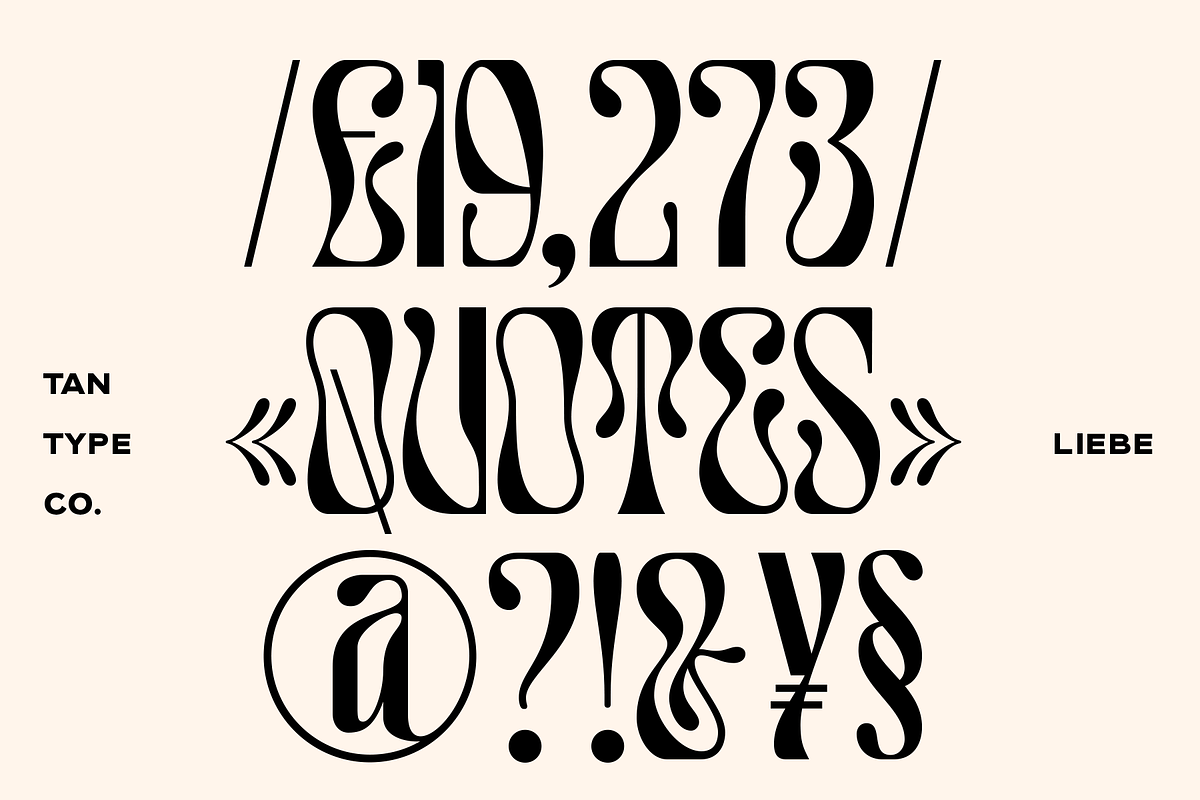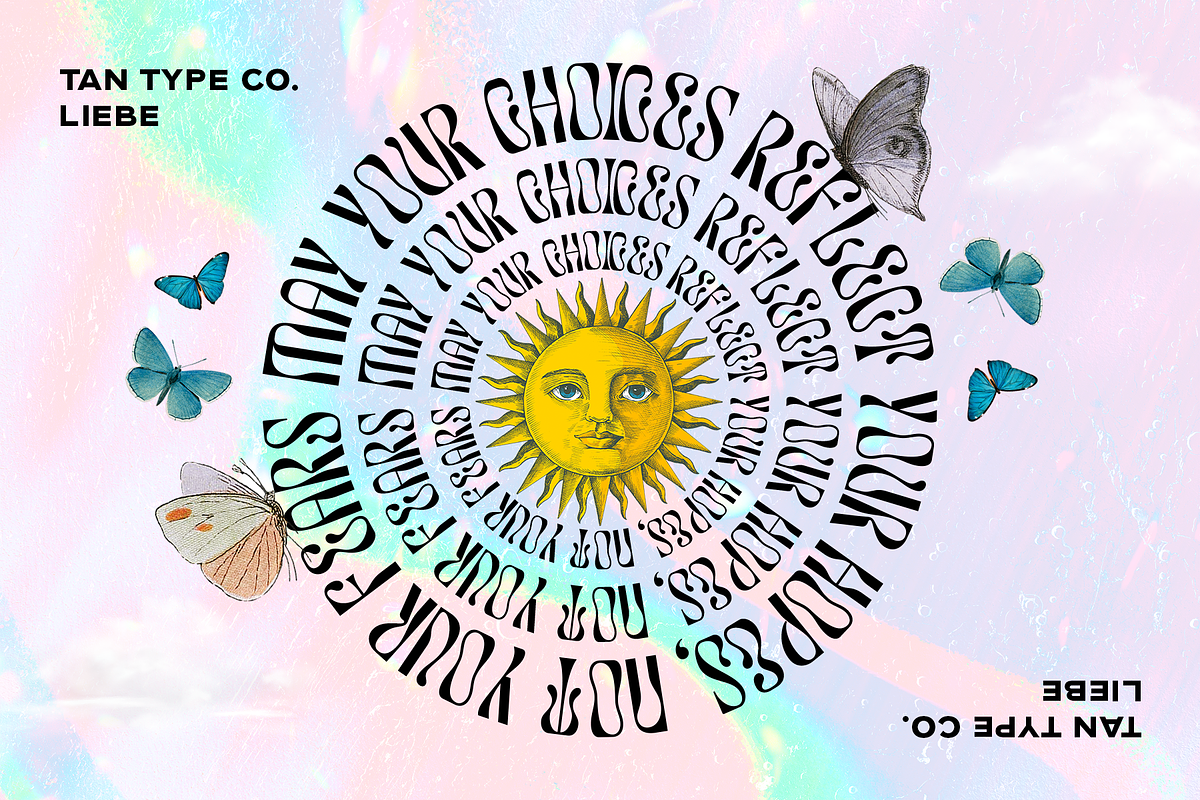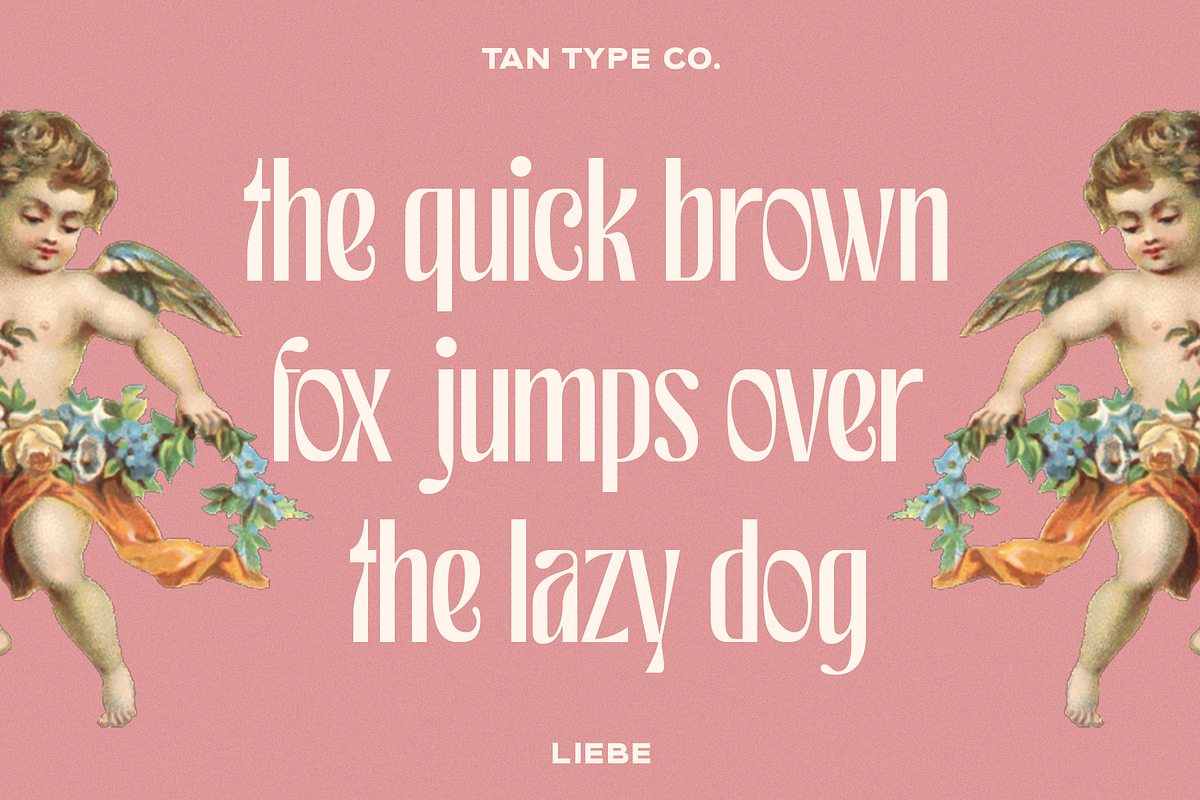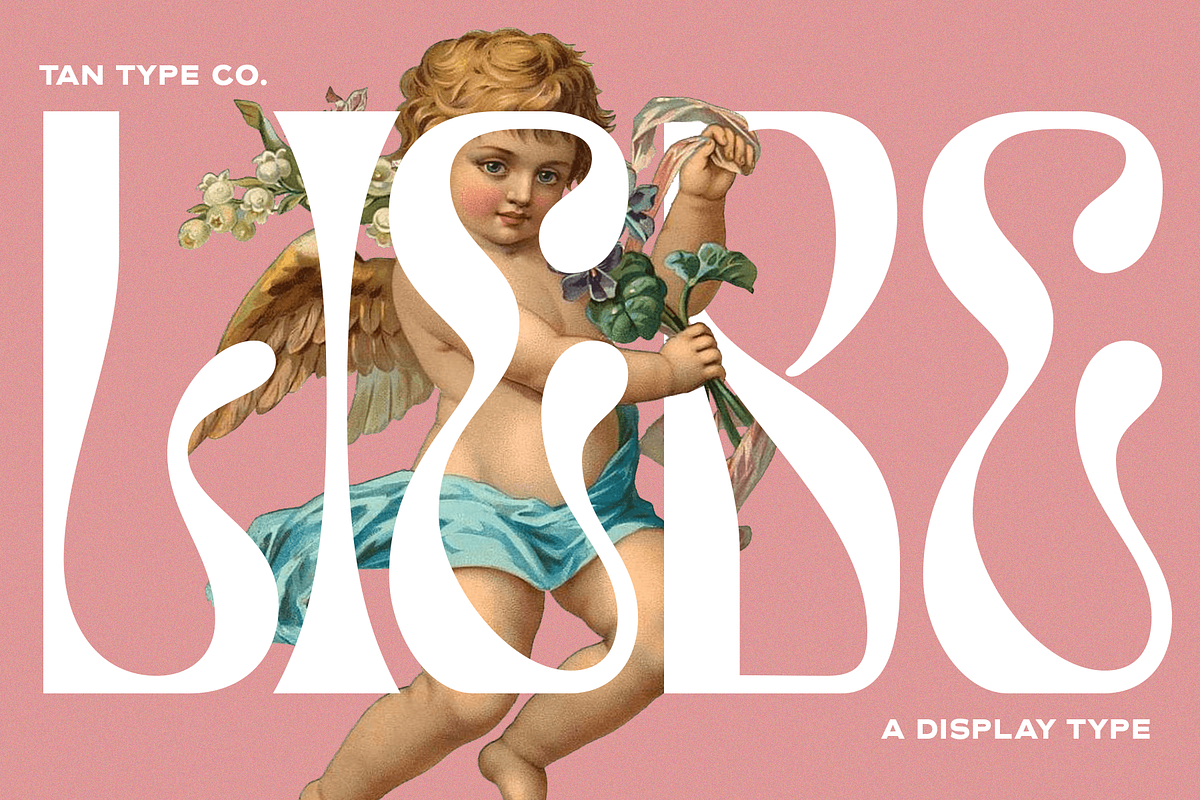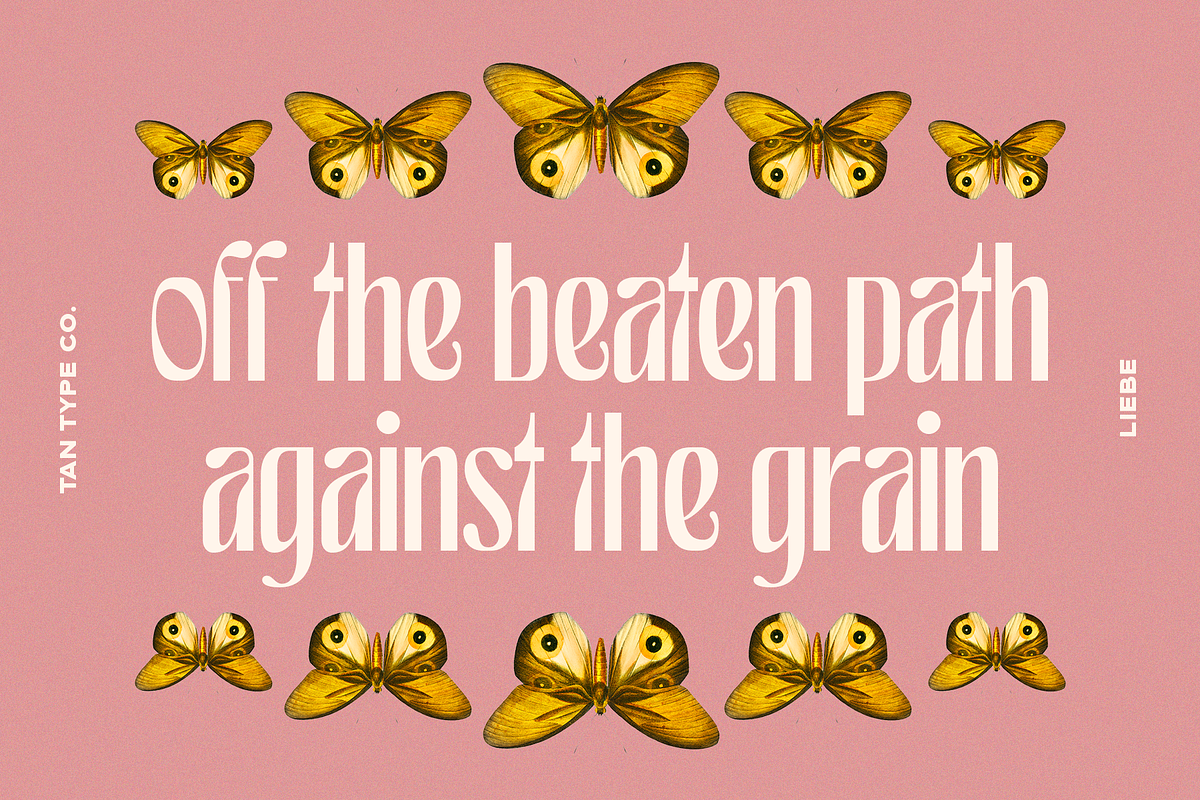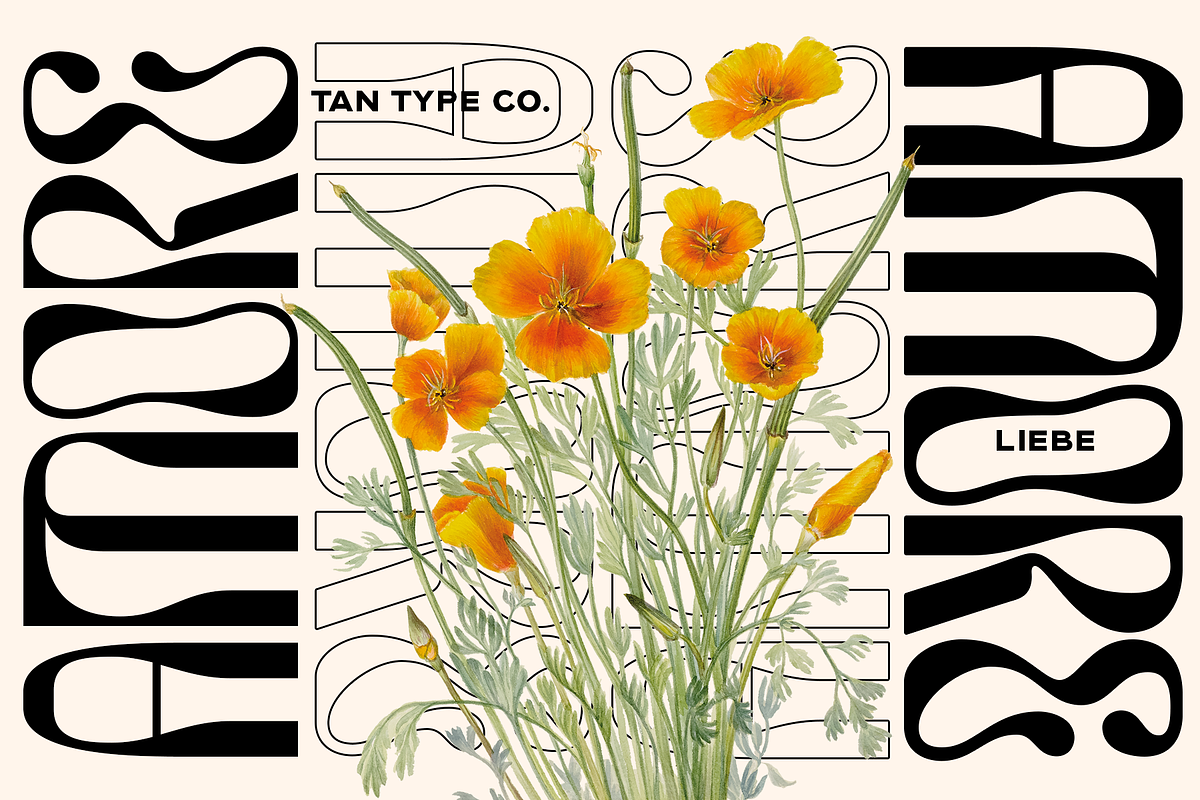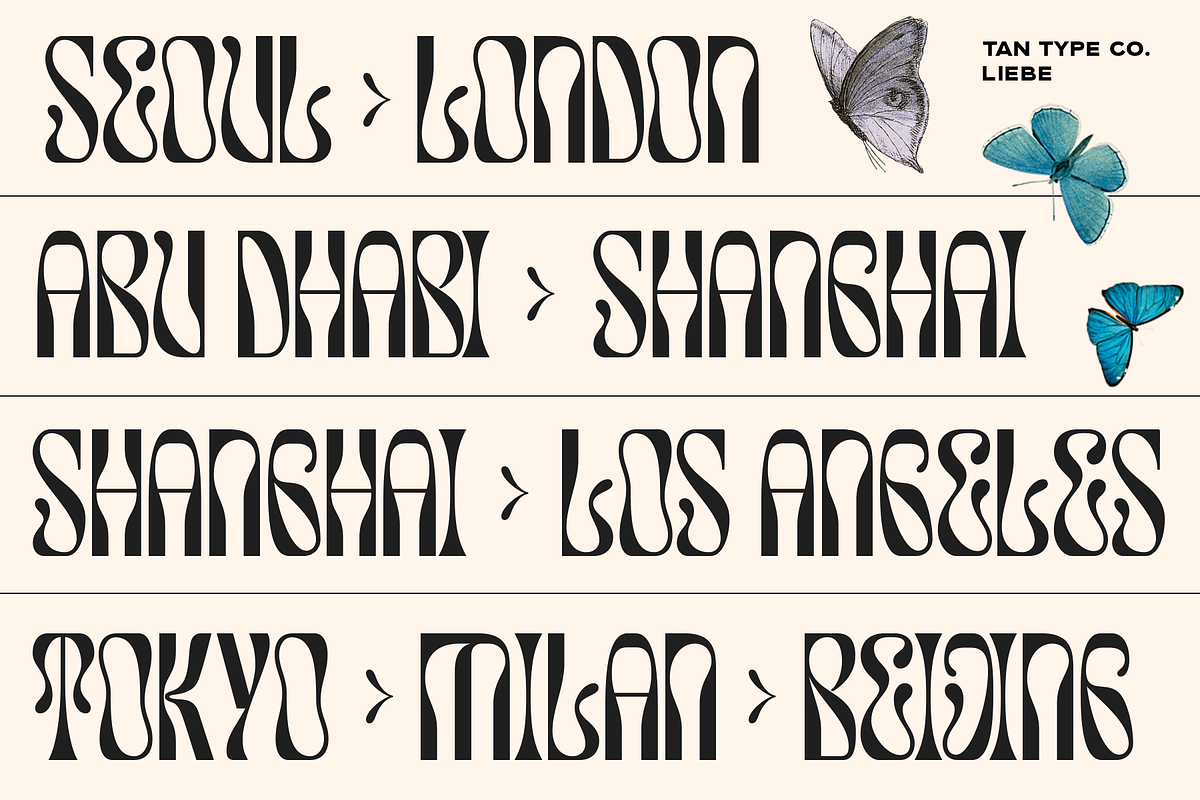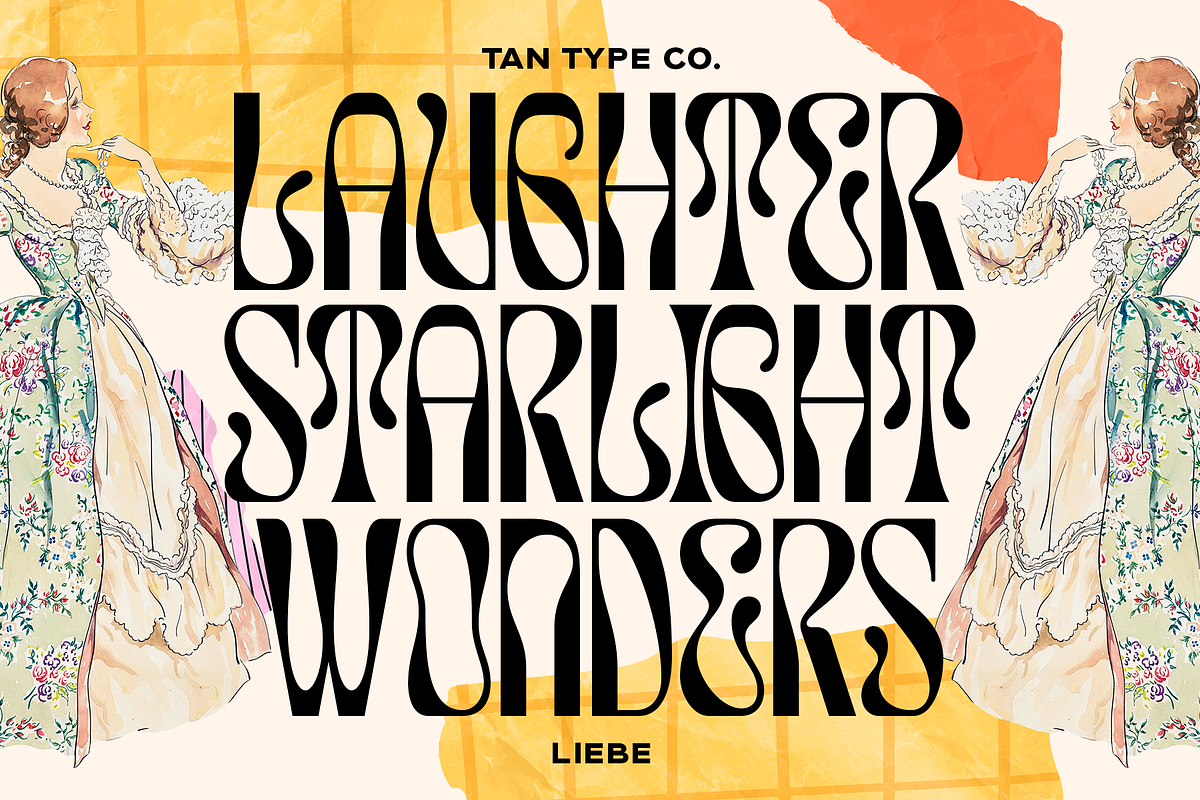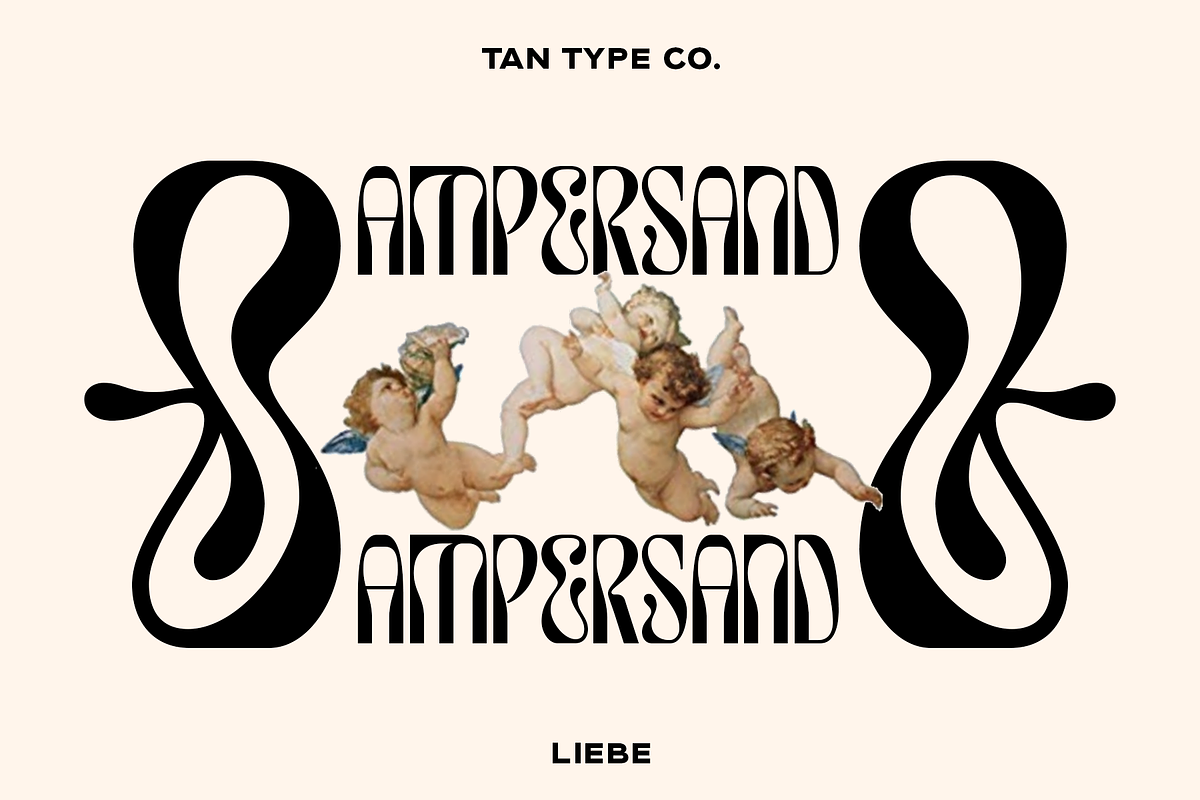
TAN - LIEBE
TAN - LIEBE is an Art Nouveau inspired font with a modern twist. Decorative enough to catch your attention yet clean enough to be readable.